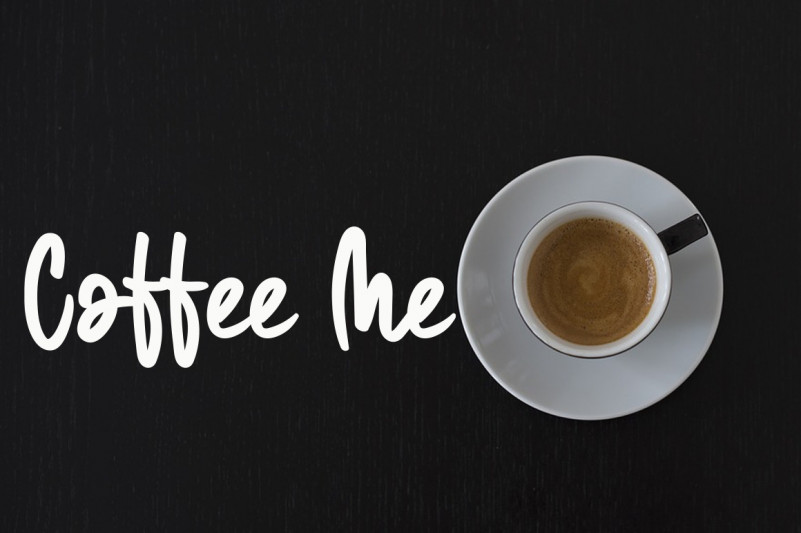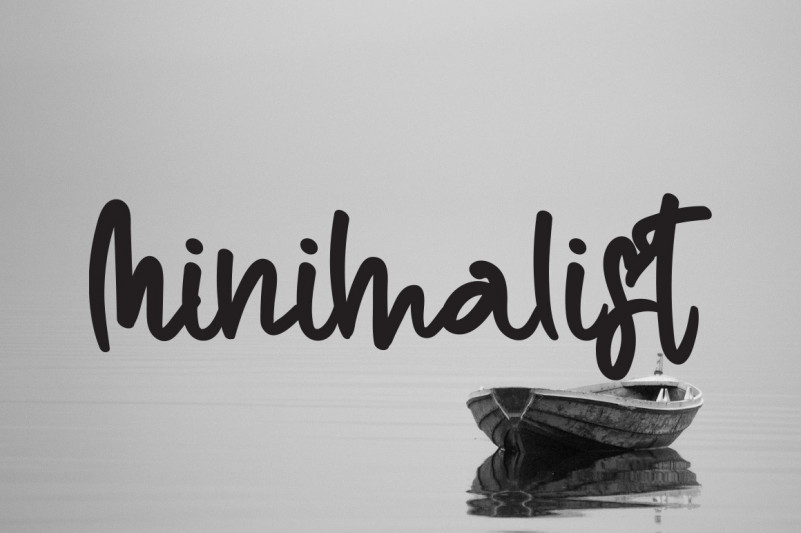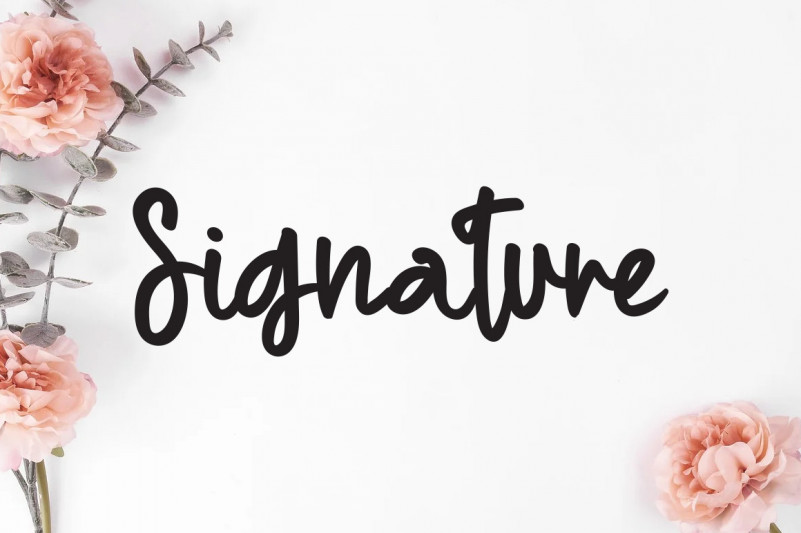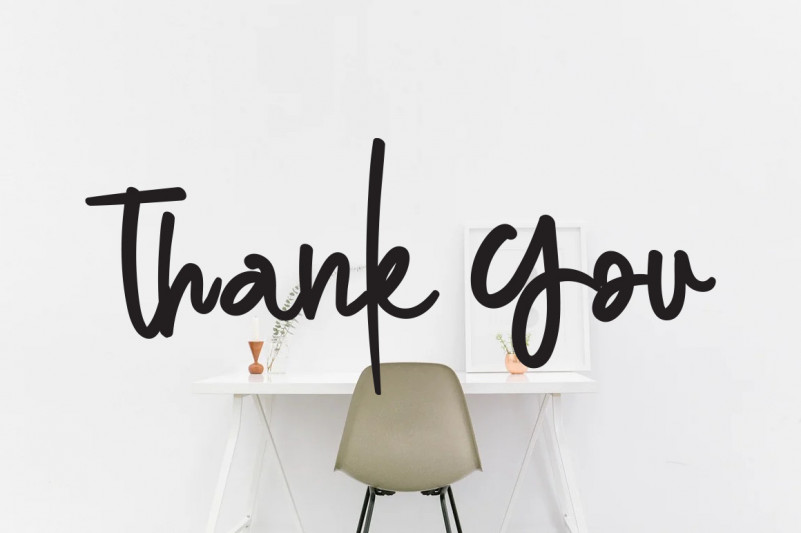
Summer Flower Script Font
This is a friendly handwritten font. Beautifully clear and cursive, this font is here to make your creations seem out of this world! Fall in love with this font and use it in your most creative projects!